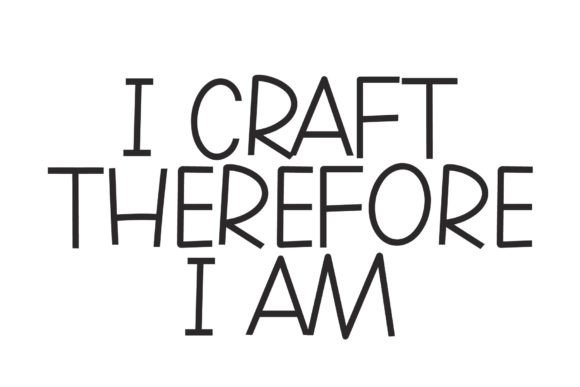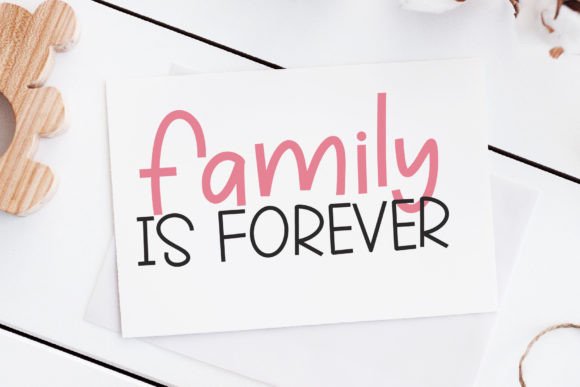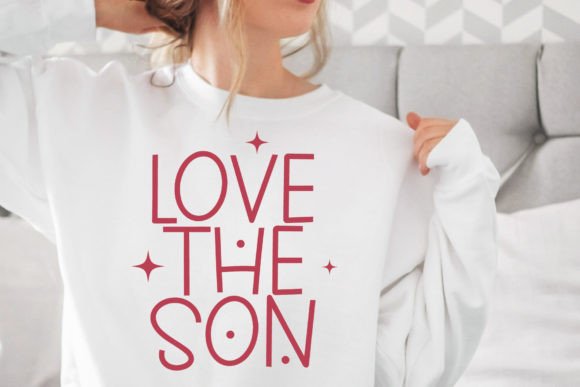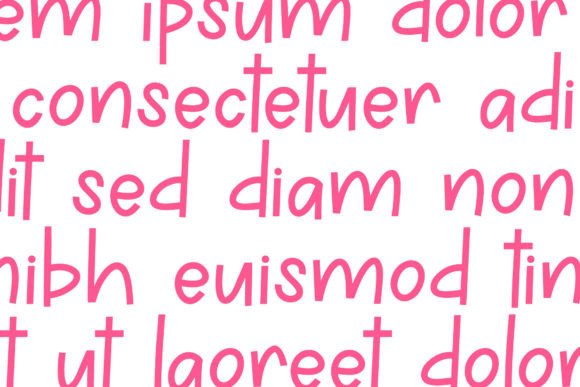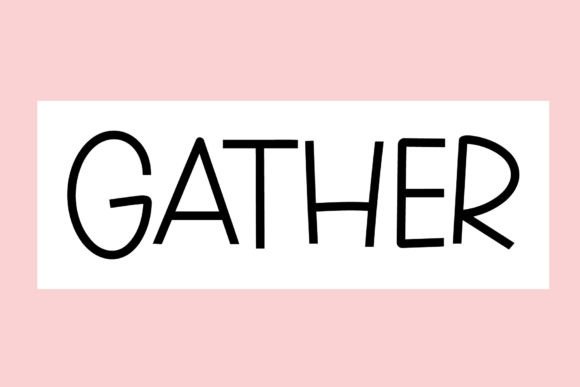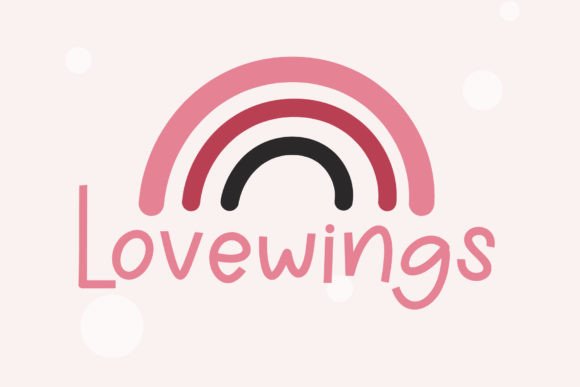
Bubble Gum Bites Font: A Sweet Addition to Your Design Collection
Are you on the hunt for a font that can add a touch of whimsy and romance to your designs? Look no further than the Bubble Gum Bites font! This authentic handwritten font is masterfully designed to bring a romantic touch to your creative projects, making it a true favorite among designers and crafters.
The Charm of Bubble Gum Bites
Bubble Gum Bites is more than just a font – it’s an experience. With its unique blend of elegance and playfulness, this font is sure to capture the hearts of your audience. The romantic touch that Bubble Gum Bites brings to the table is unparalleled, making it the perfect choice for designers and crafters who want to add a touch of sweetness to their work.
What Makes Bubble Gum Bites Special?
• Authentic Handwritten Style: Bubble Gum Bites boasts an authentic handwritten style that is sure to make your designs stand out from the crowd. The font’s unique character and charm are unmatched, making it a true gem in the world of typography.
• Romantic Touch: The romantic touch that Bubble Gum Bites brings to the table is one of its most distinctive features. Whether you’re working on a wedding invitation, a branding project, or a craft tutorial, this font is sure to add a touch of elegance and sophistication.
• Versatility: Bubble Gum Bites is an incredibly versatile font that can be used in a wide range of design applications. From digital projects to print materials, this font is sure to shine in any context.
How to Use Bubble Gum Bites in Your Designs
Using Bubble Gum Bites in your designs is incredibly easy. Here are a few tips to get you started:
• Pair it with Other Fonts: Bubble Gum Bites pairs perfectly with a wide range of fonts, from bold and modern to elegant and script. Experiment with different combinations to find the perfect look for your design.
• Use it for Headings and Titles: The unique character of Bubble Gum Bites makes it perfect for headings and titles. Use it to add a touch of elegance and sophistication to your designs.
• Add it to Your Digital Projects: Bubble Gum Bites is a great addition to any digital project, from social media graphics to website headers. Use it to add a touch of personality and whimsy to your online presence.
The Benefits of Using Bubble Gum Bites
There are many benefits to using Bubble Gum Bites in your designs. Here are a few:
• Unique and Eye-Catching: Bubble Gum Bites is a truly unique font that is sure to grab the attention of your audience. Its distinctive character and charm make it a great choice for designers who want to stand out from the crowd.
• Easy to Read: Despite its playful and whimsical nature, Bubble Gum Bites is incredibly easy to read. This makes it a great choice for designers who want to create designs that are both beautiful and functional.
• Perfect for Branding: The romantic touch and elegant feel of Bubble Gum Bites make it a great choice for branding projects. Use it to create a cohesive and sophisticated brand identity that will leave a lasting impression on your audience.
In conclusion, Bubble Gum Bites is a sweet addition to any design collection. With its authentic handwritten style, romantic touch, and versatility, this font is sure to bring a touch of elegance and sophistication to your creative projects. Whether you’re a designer, crafter, or DIY enthusiast, Bubble Gum Bites is a must-have font that is sure to inspire and delight.